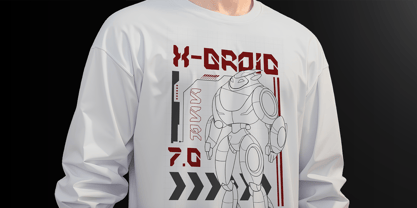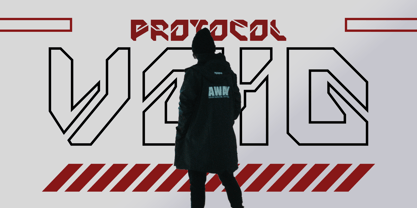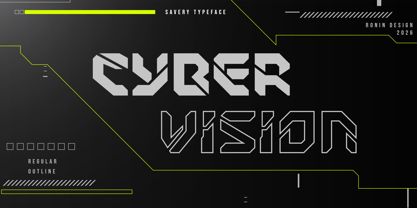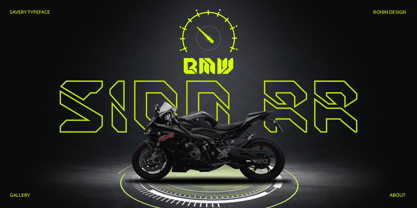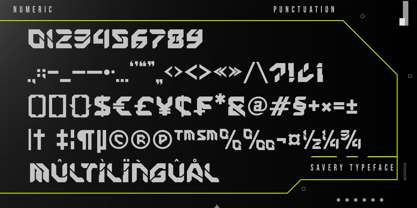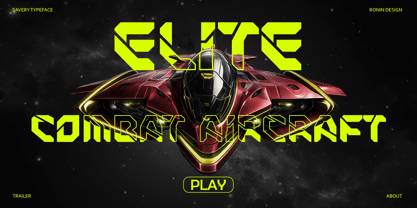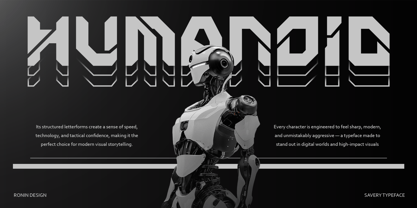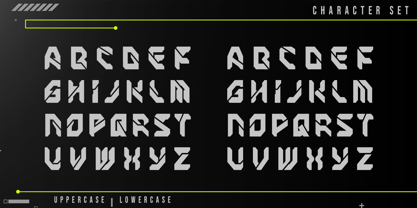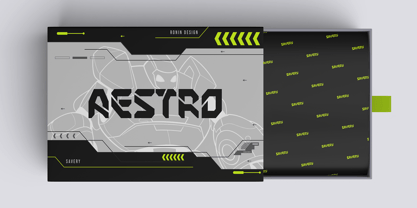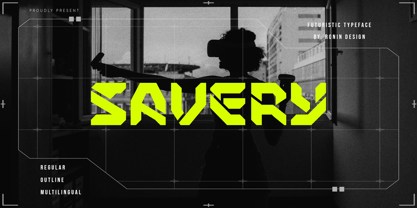
Savery
by Ronin Design
The Savery Font Family was designed by RoninDesign and published by Ronin Design. Savery contains 2 styles and family package options. More about this family
Savery is a bold futuristic display typeface built for modern digital aesthetics. It delivers a strong cyber-tech presence that instantly feels advanced, sleek, and powerful. Savery structured letterforms create a solid sci-fi atmosphere, making it perfect for gaming titles, technology branding, esports visuals, cyberpunk posters, UI headlines, music covers, and futuristic product campaigns. Features : • Savery regular and outline • All caps • Ton of glyphs • Multilingual accent • PUA encoded characters